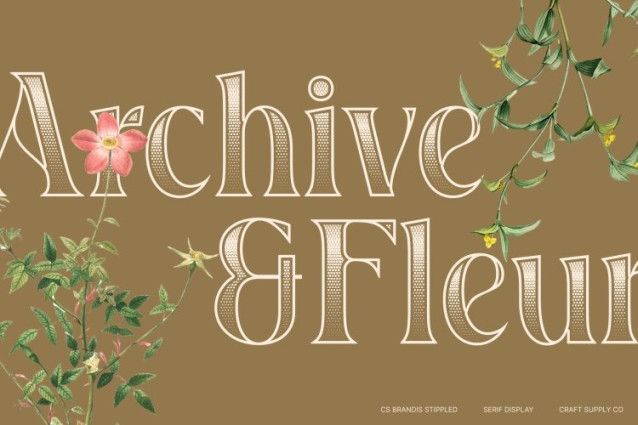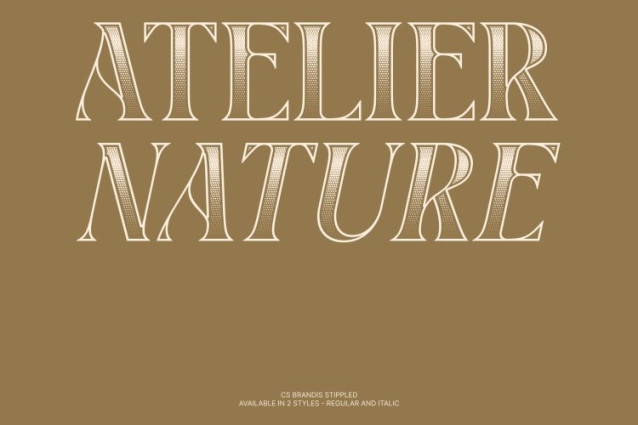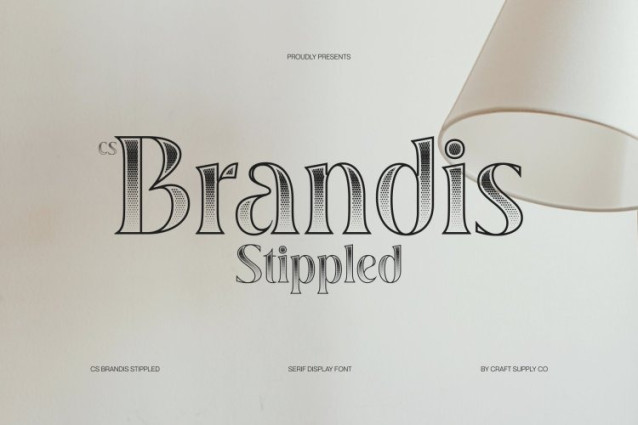
CS Brandis Stippled Font
CS Brandis Stippled Font – This is a modern serif font designed to express elegance through timeless proportions and contemporary refinement. Its well-crafted letterforms balance classic serif foundations with a modern attitude, while a delicate stippled texture adds subtle depth and a handcrafted engraved feel. This unique combination enhances the font’s sophisticated presence, creating a typeface that feels stylish, refined, and visually distinctive.
High Contrast with Textured Modern Character
The defining feature of this font lies in its striking high-contrast strokes, bringing drama and visual rhythm to every letter. Enhanced with a fine stippled effect, the contrast becomes richer and more dimensional. Playful modern shapes introduce personality and charm without compromising elegance, resulting in a typeface that feels expressive, aesthetic, and confidently refined.
Contemporary Style with Sophisticated Depth
Blending contemporary design sensibilities with elegant detailing, this font achieves a look that is both modern and timeless. The stippled texture subtly enriches its refined curves and sharp transitions, adding character while maintaining a graceful visual flow that feels fashionable and sophisticated.
Perfect for Fashion and Editorial Design
This is ideal for fashion branding, posters, and editorial layouts. It shines in headlines, titles, and statement typography, enhancing fashion campaigns, magazine spreads, and luxury branding with a modern high-contrast elegance enriched by artistic texture.